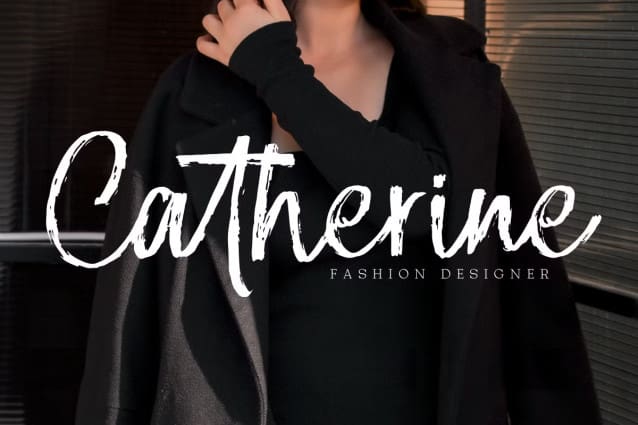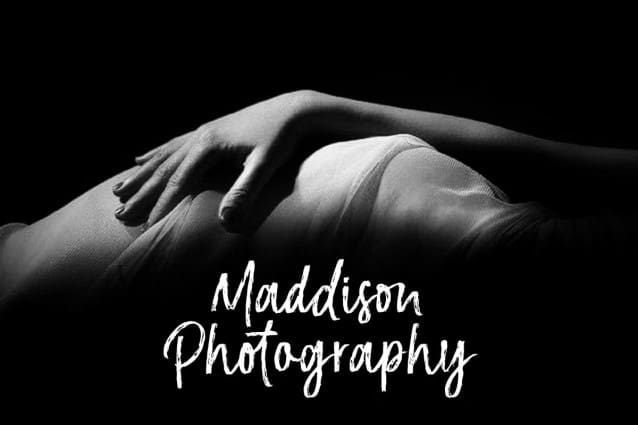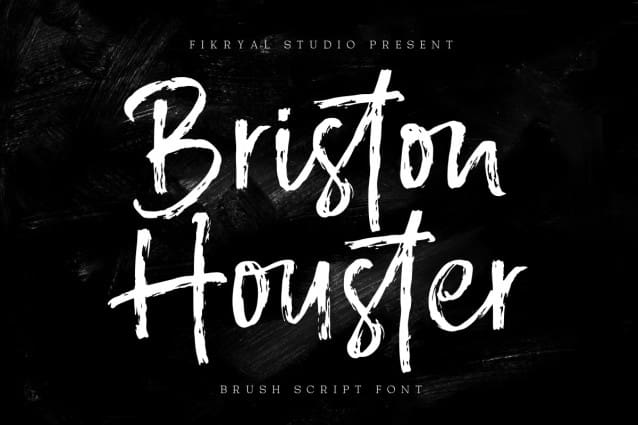
Briston Houster Font
Briston Houster Font is a bold and energetic brush script font designed to add a personal and dynamic touch to your creative projects. With natural brush strokes, a handcrafted aesthetic, and stylish ligatures, it’s perfect for designers looking to create eye-catching and authentic designs.
Why You’ll Love It: This font strikes the perfect balance between casual and polished, making it versatile enough for a variety of uses. Whether you’re working on branding, packaging, posters, or social media graphics, Briston Houster ensures your projects stand out with its unique charm and professional quality.